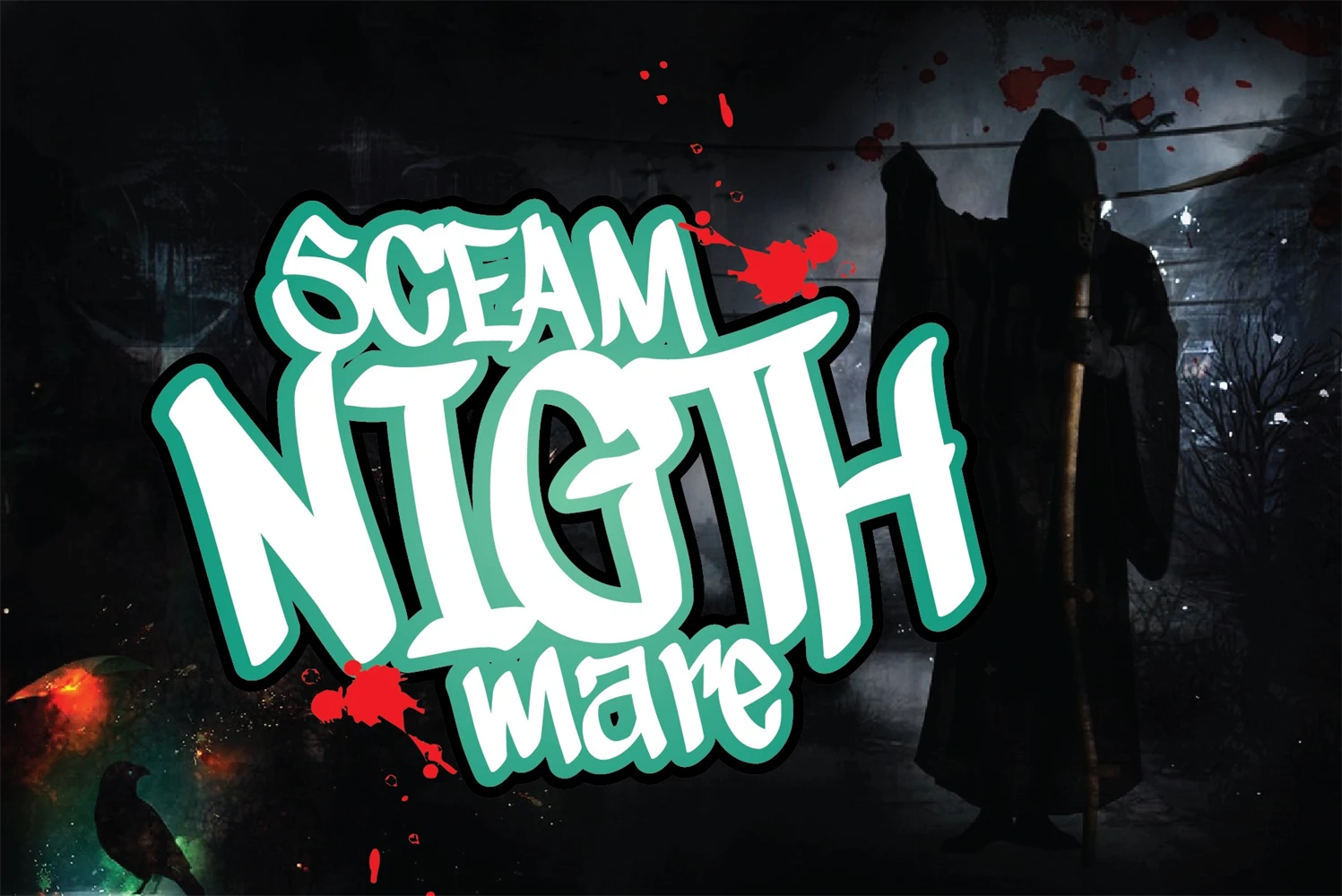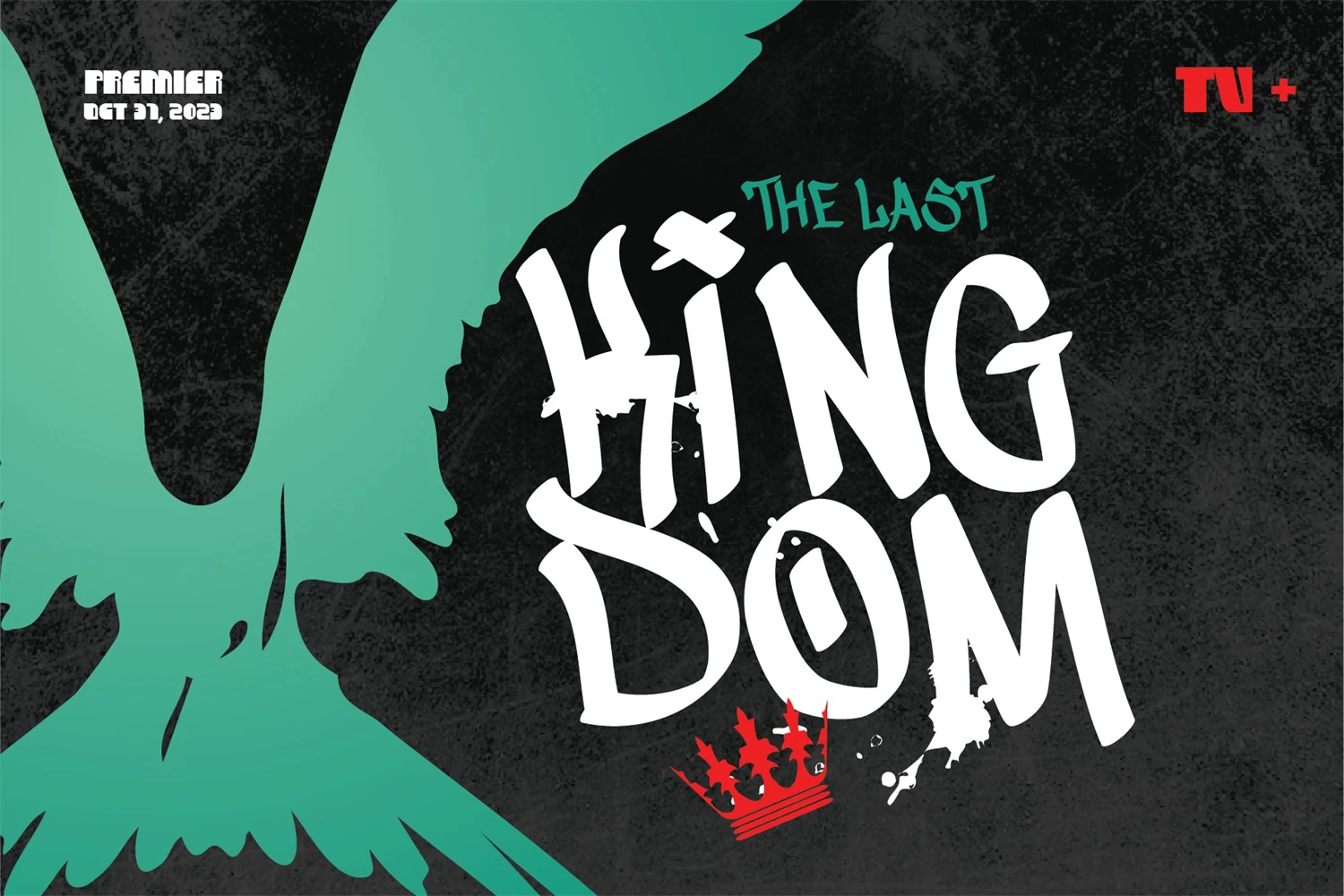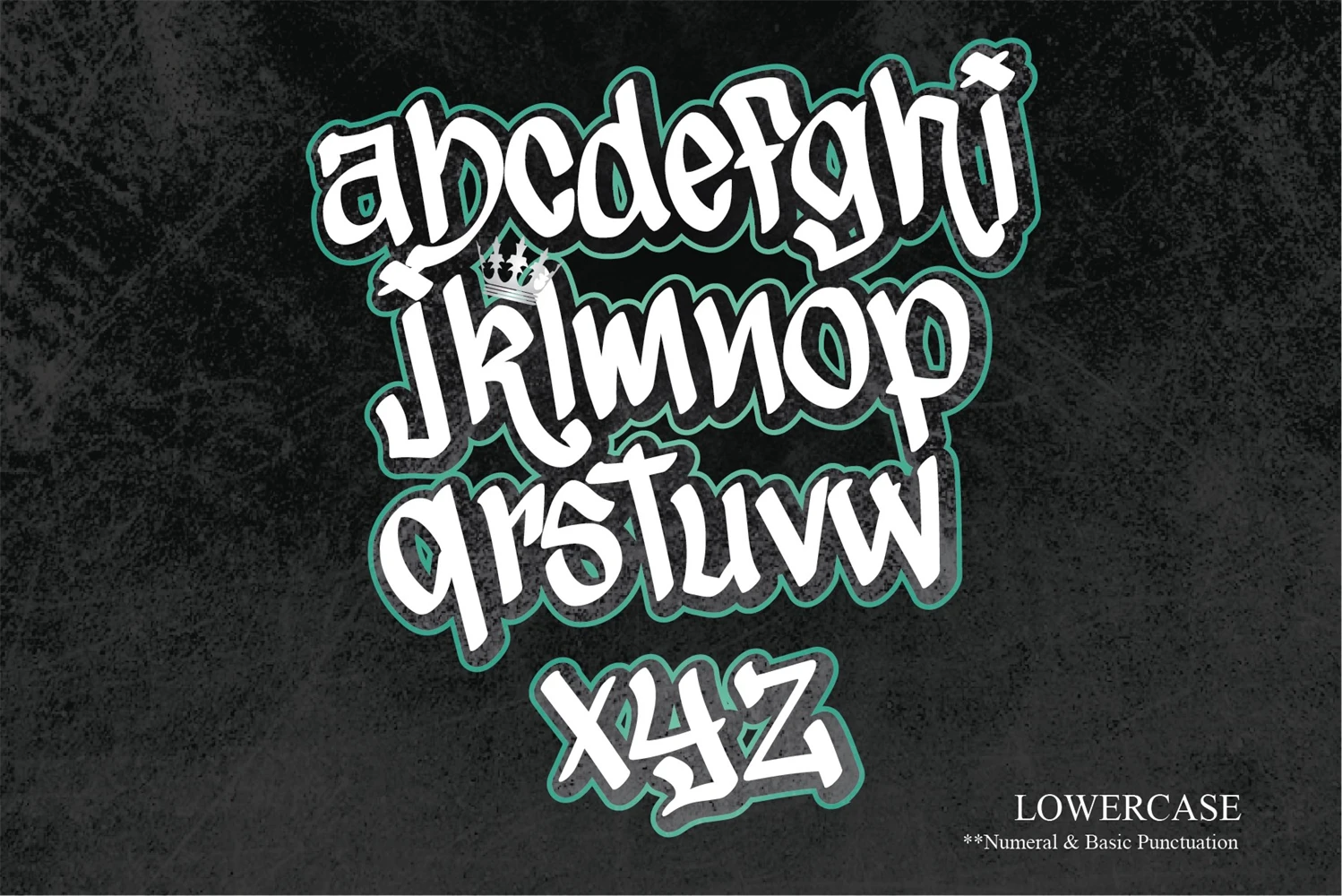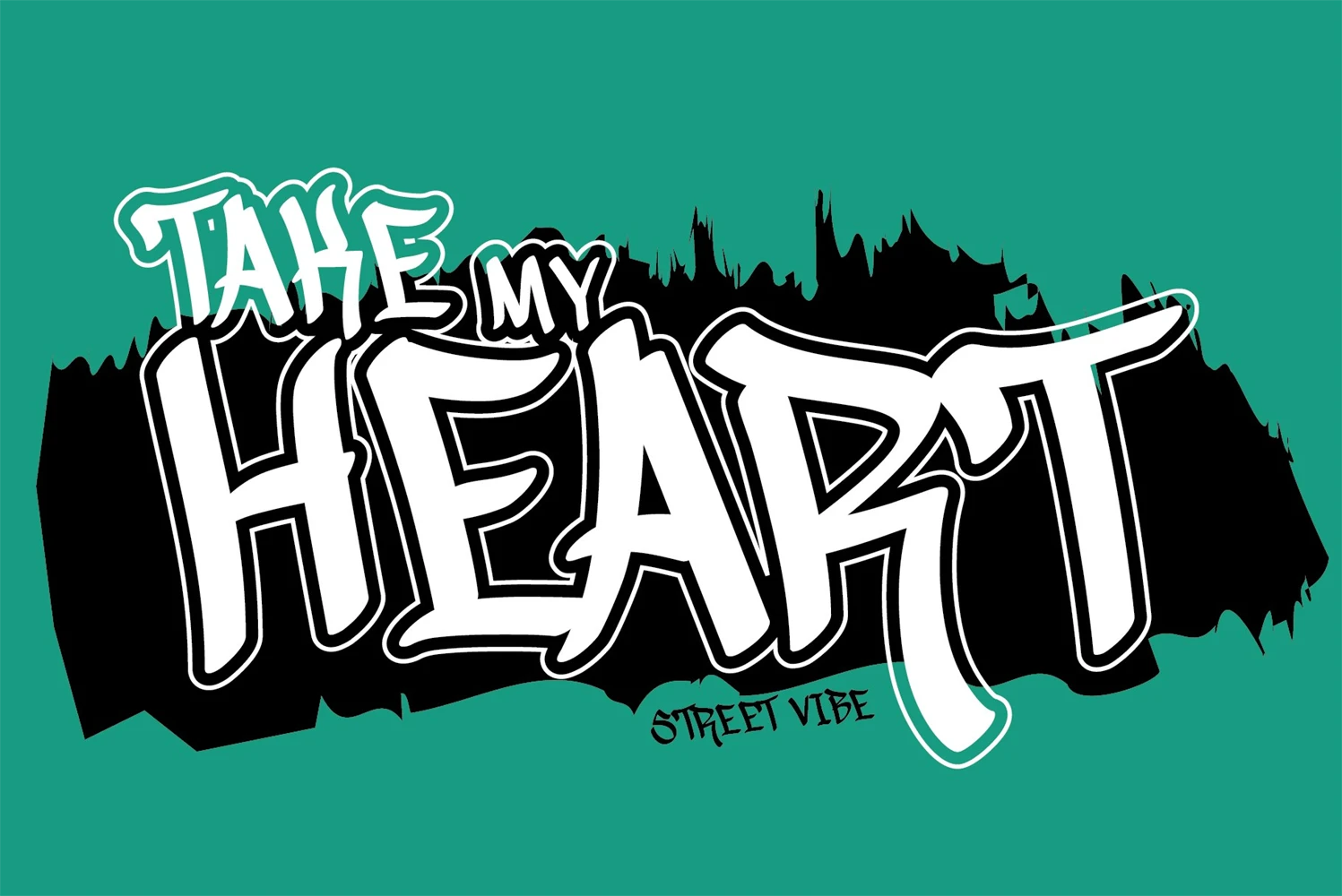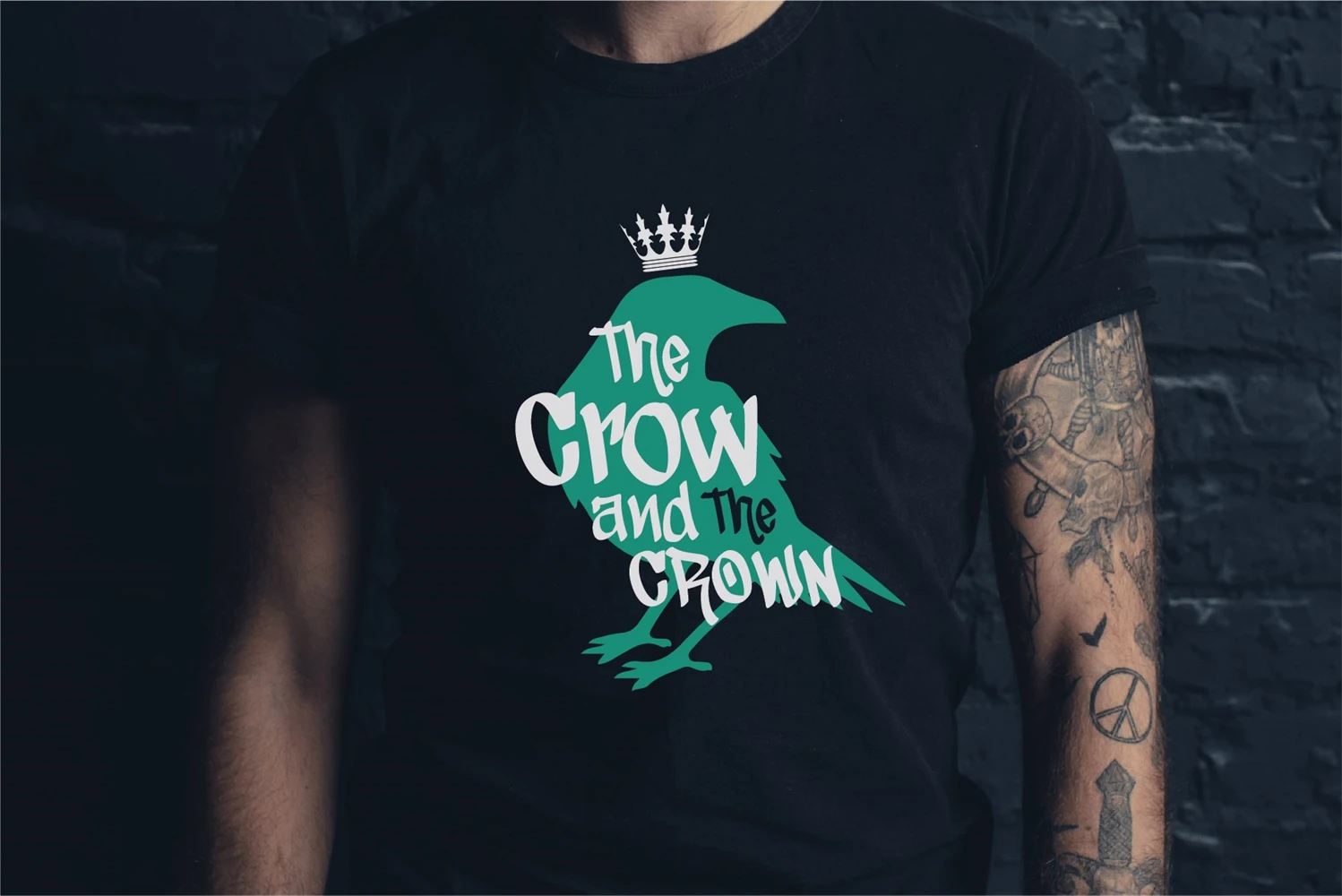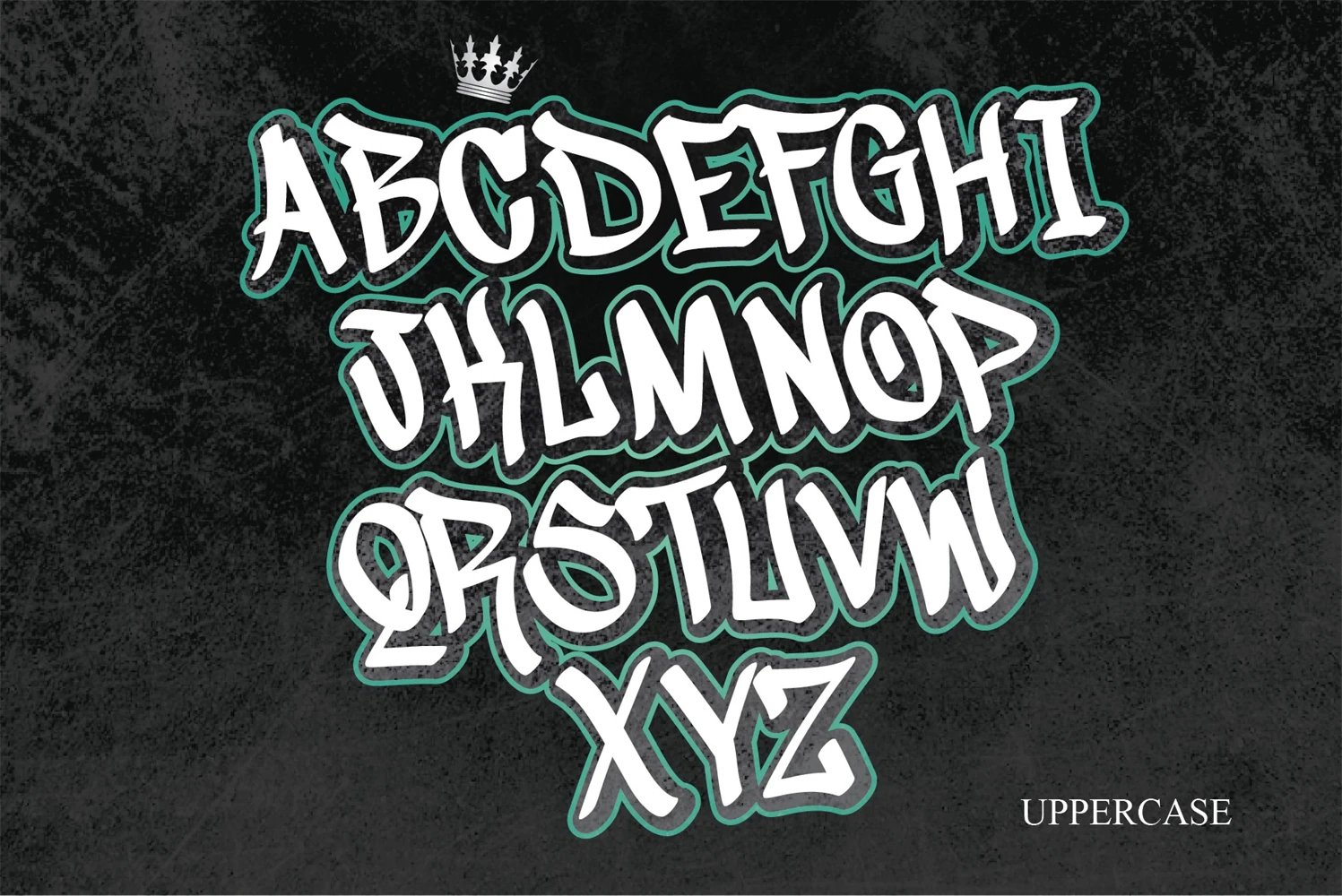
Demons is an assertive graffiti-styled blackletter font, that features a street art vibe. This font is suitable for designs like logos, T-shirts, book covers, posters, sportswear, skateboard, and more.